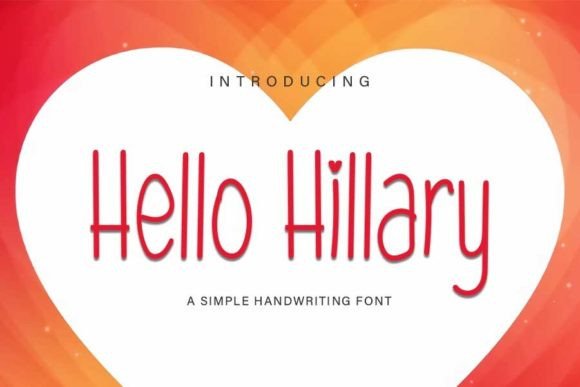
In the realm of script fonts, let me introduce to you an absolute gem — the Hello Hilary Font. With its delicate strokes and innate elegance, this beauty understands the profound impact that words can carry. Crafted meticulously by the talented Merry Joana, this font family is a piece of art that transforms your designs into captivating masterpieces.
Step into a world where imagination knows no bounds. Dive into the myriad possibilities of Hello Hilary. Create heartfelt messages that convey the essence of your heartfelt emotions. Design invitations that exude charm and sophistication. Breathe life into logos and branding with a unique touch of artistry. The possibilities are limitless, waiting for you to unleash your creativity.
Hello Hilary's remarkably versatile style adapts effortlessly to various aesthetics. Let it grace your wedding invitations, adding an air of timeless elegance, or use it to craft stunning quotes that resonate with your soul. Its delicate touch adds a personal touch to your social media posts, captivating your audience with its inherent charm.
Experience the allure of Hello Hilary's well-balanced letters, the delicate dance of its curves, and the graceful flow of its lines. This font is a true celebration of the written word, inviting you to explore the depths of artistic expression. Dive into the world of Hello Hilary and let your designs bloom with creativity!